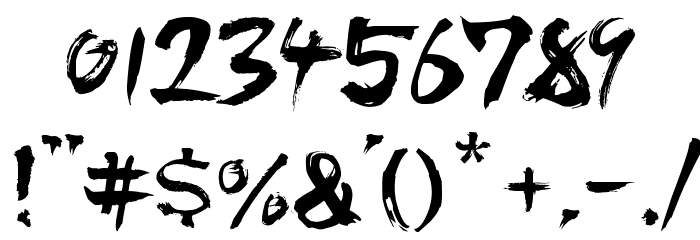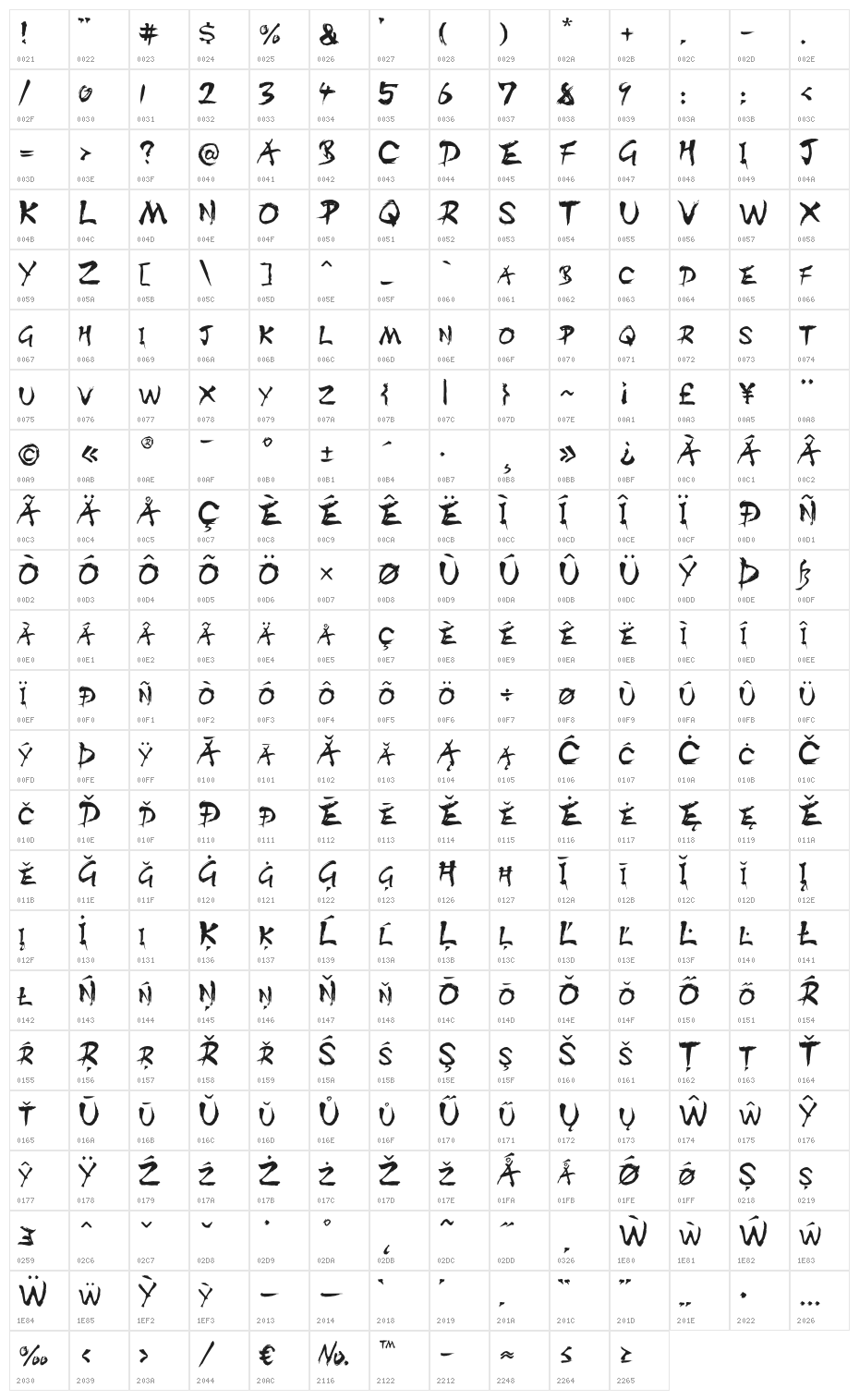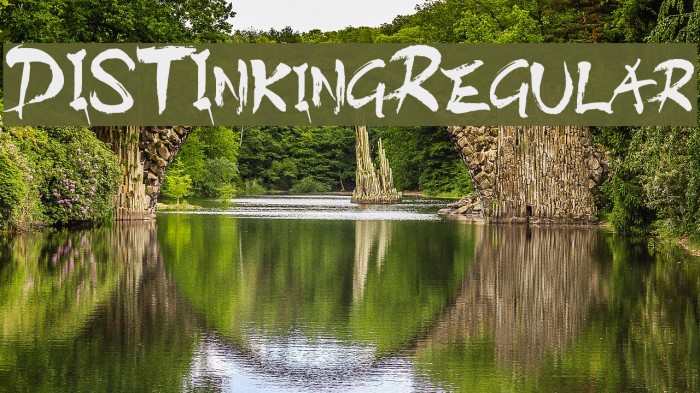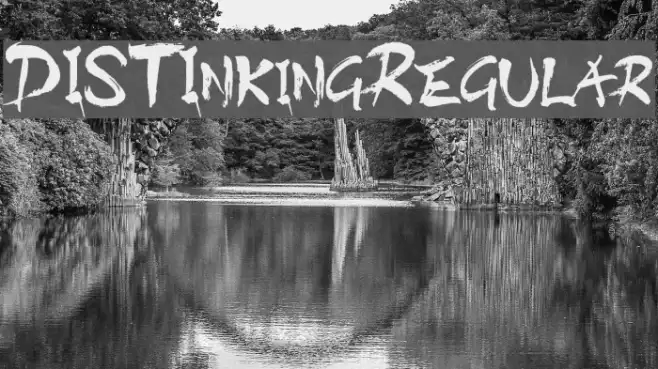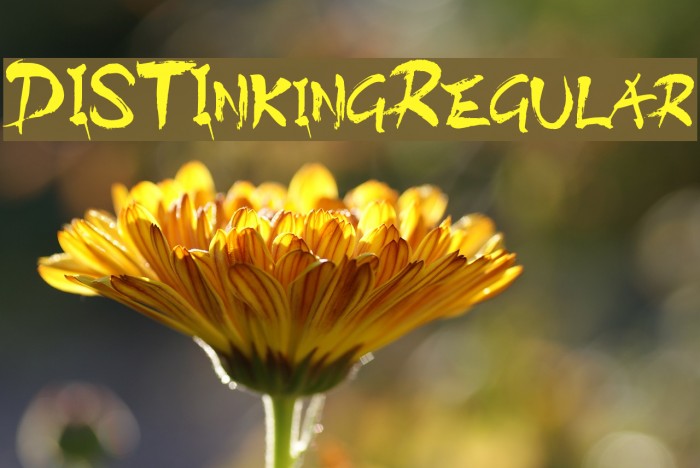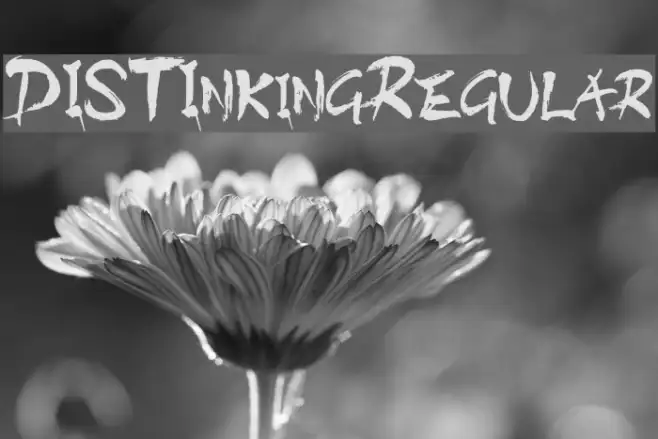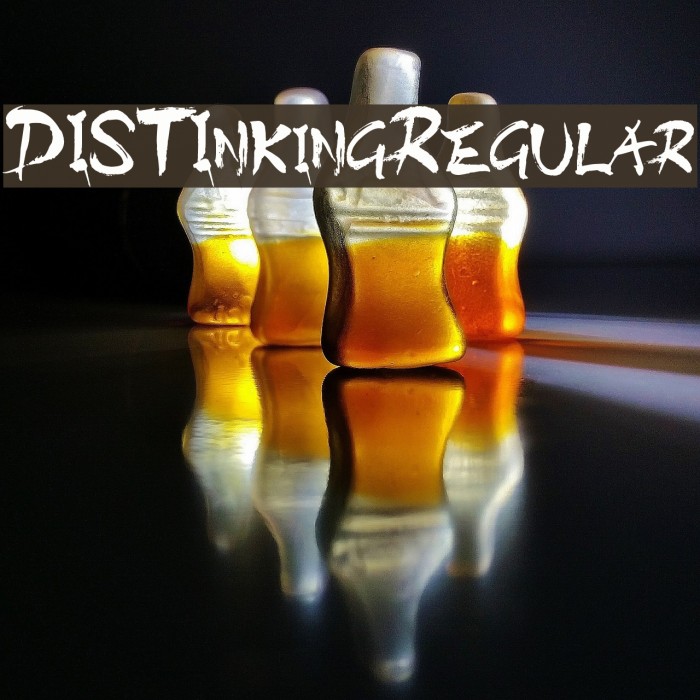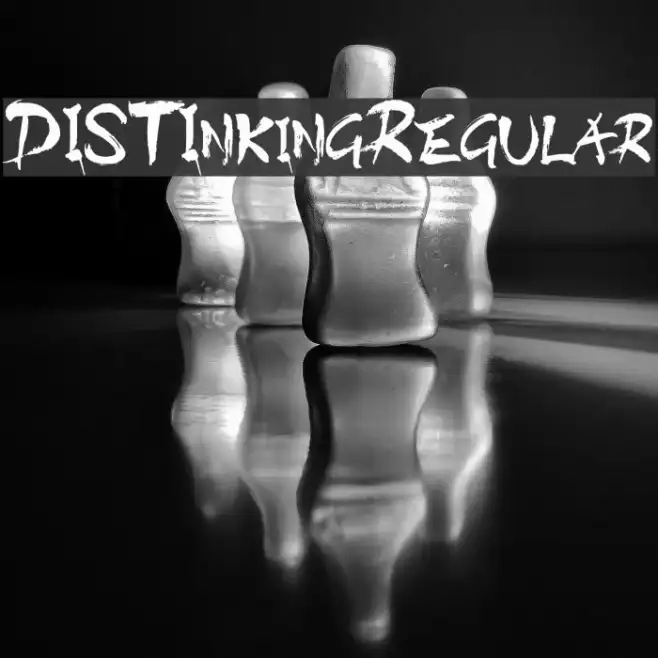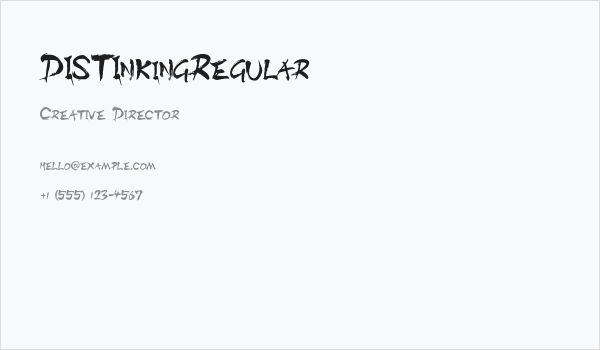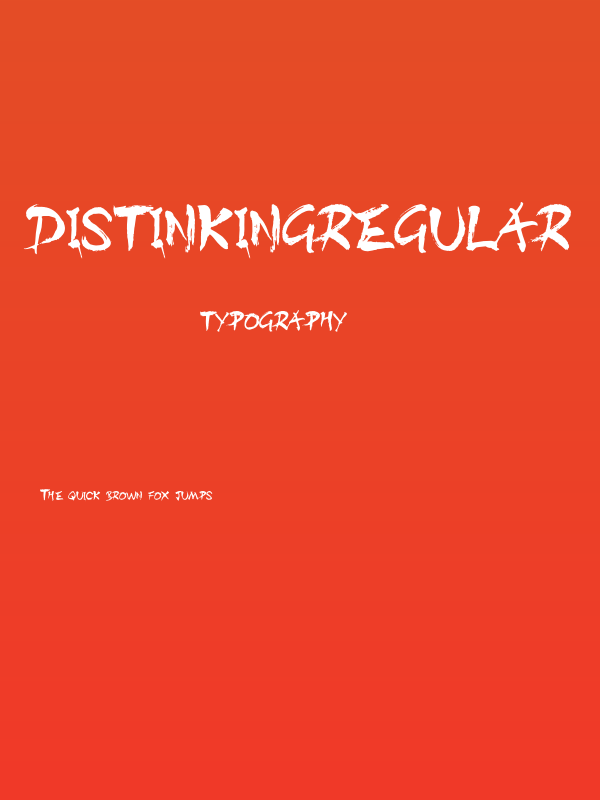
DISTInkingRegular Font
DISTInkingRegular Description
This font exudes a bold and expressive style, characterized by its brush-like strokes and dynamic, energetic appearance. The letters have a hand-painted quality, with varying thicknesses that suggest movement and fluidity. The uppercase and lowercase letters maintain a consistent style, with sharp angles and a slightly aggressive flair. Numbers and special characters follow the same aesthetic, making them cohesive with the alphabet. The overall impression is artistic and impactful, suitable for making a strong visual statement.
| Proposed Projects | Ideal for artistic projects, posters, album covers, and branding that requires a strong, expressive visual impact. |